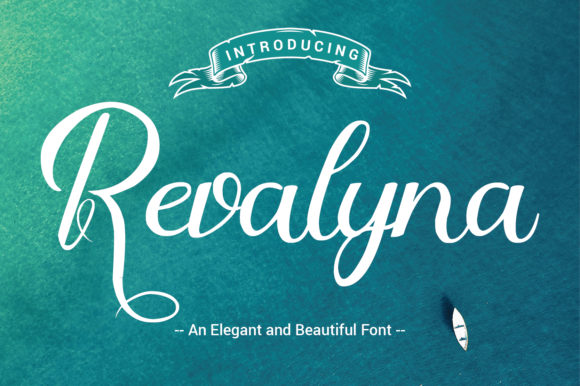
**Revalyna Font: The Epitome of Sophistication and Charm for Your Written Creations**
Immerse yourself in the world of Revalyna, an exquisite handwritten font that exudes elegance, beauty, and unparalleled style. Its graceful curves and delicate strokes will enchant your designs, transforming them into captivating masterpieces that command attention.
**Unleash Your Creativity with a Font that Knows No Bounds**
Revalyna's versatility knows no limits. Whether you're crafting elegant wedding invitations, designing captivating social media posts, or adding a touch of allure to your personal artwork, this font will elevate your creations to new heights.
**Create Designs that Speak Volumes**
With Revalyna at your disposal, your designs will become more than just words on a page. They will convey emotions, evoke memories, and leave a lasting impression on your audience. Every letter you write will resonate with the beauty and sophistication of Revalyna.
**Experience the Power of Revalyna**
Embrace the boundless possibilities that Revalyna offers. Let its enchanting curves and alluring style inspire you to create designs that captivate and leave an enduring legacy. From delicate wedding invitations to eye-catching social media posts, Revalyna will transform your creations into works of art that will surely turn heads.
**Indulge in the Beauty of Handwritten Elegance**
Revalyna is more than just a font; it's an invitation to experience the allure of handwritten elegance. Its meticulously crafted strokes and enchanting curves will add a touch of warmth and personality to your designs, making them irresistibly charming.